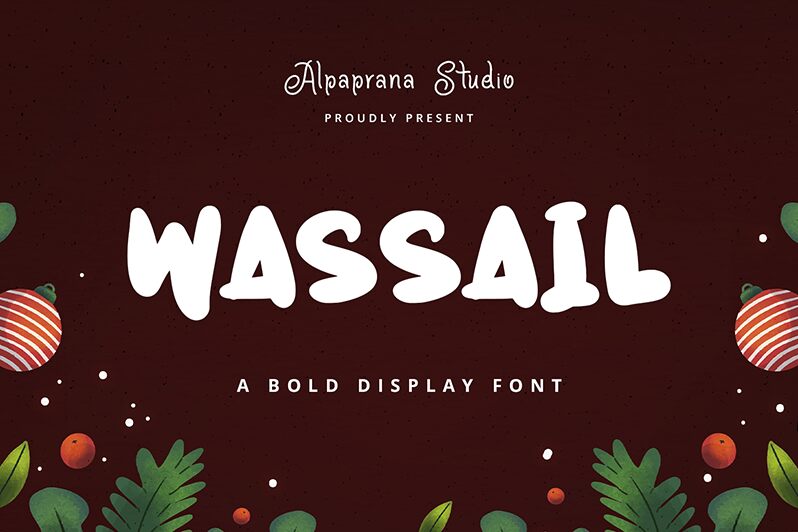
Wassail
Wassail font by Alpaprana Studio is a bold cartoon display font with smooth curves, lively presence, and casual energy. Its organic forms and retro influence give it a distinctive character that stands out in any design project.
This free display font works excellently for eye-catching posters, social media posts, branding designs, packaging projects, invitations, business cards, magazines layouts, movie titles or covers. The font looks beautiful on headlines of all kinds in web design or printed items.